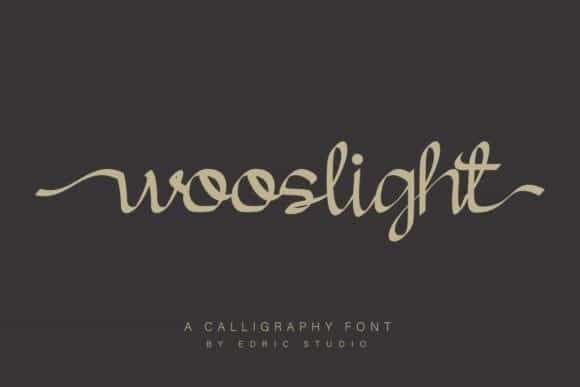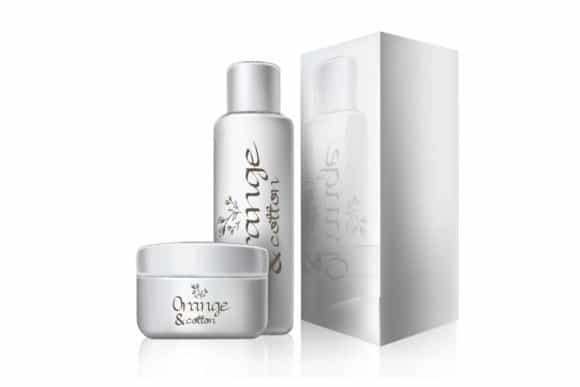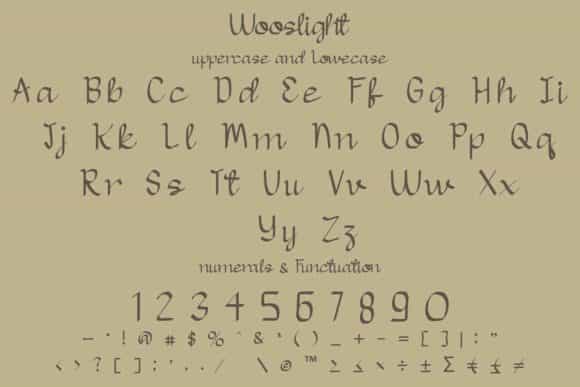
Wooslight is a calligraphy script font with strokes that are very unique and therefore looks like it was written by hand. All the typefaces that have both upper and lower case letters, digits, punctuation marks and are multilingual. Wooslight is perfect for your signature, branding, wedding fashion photography title.